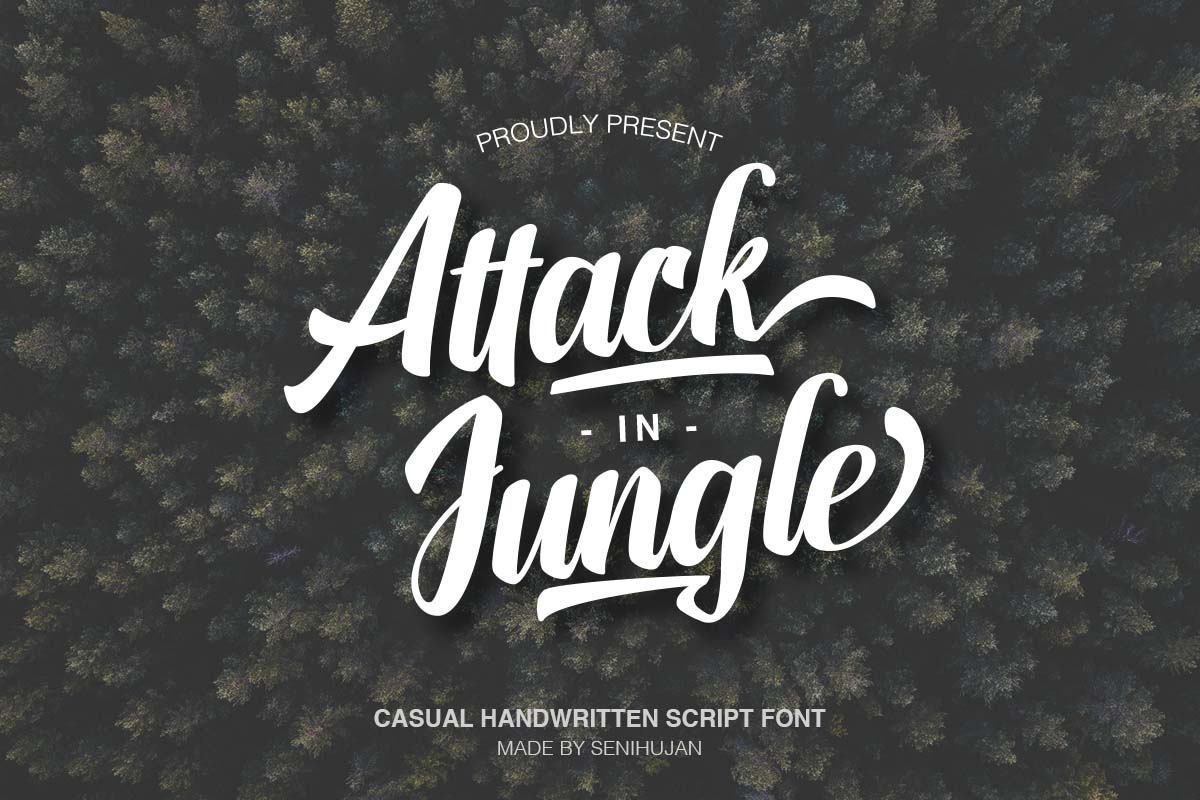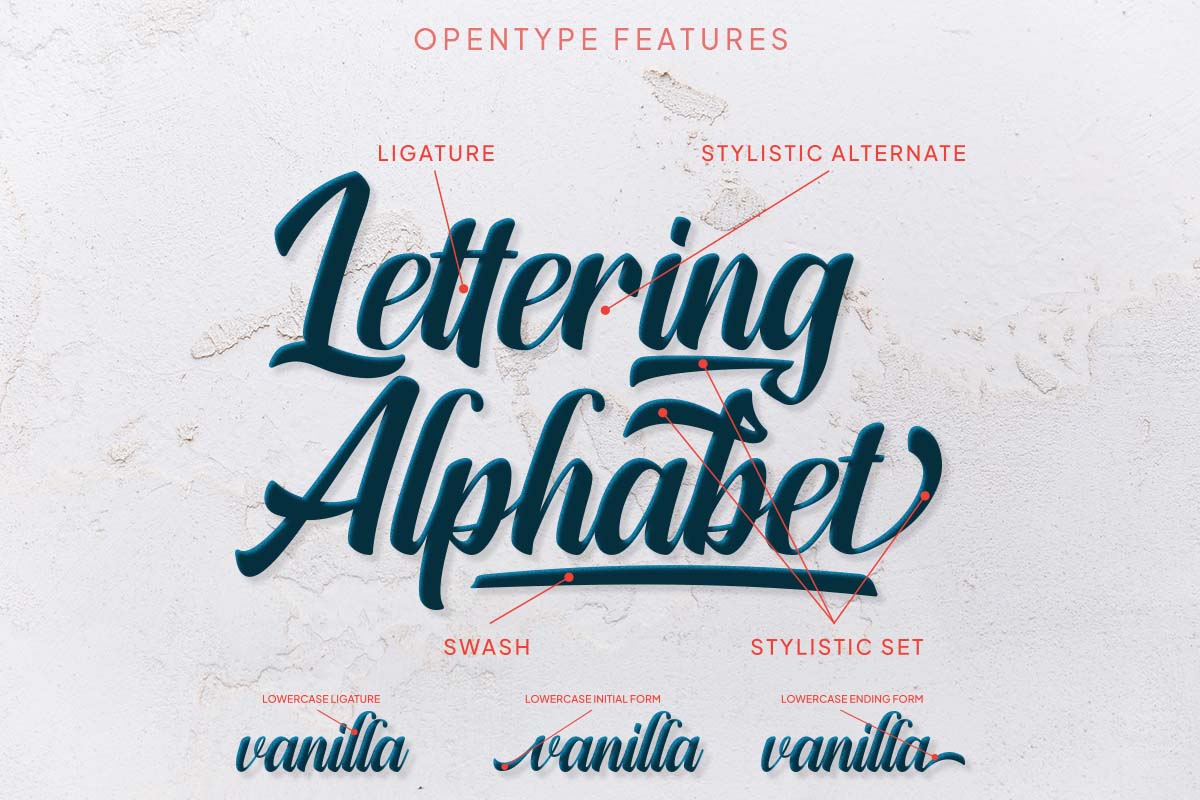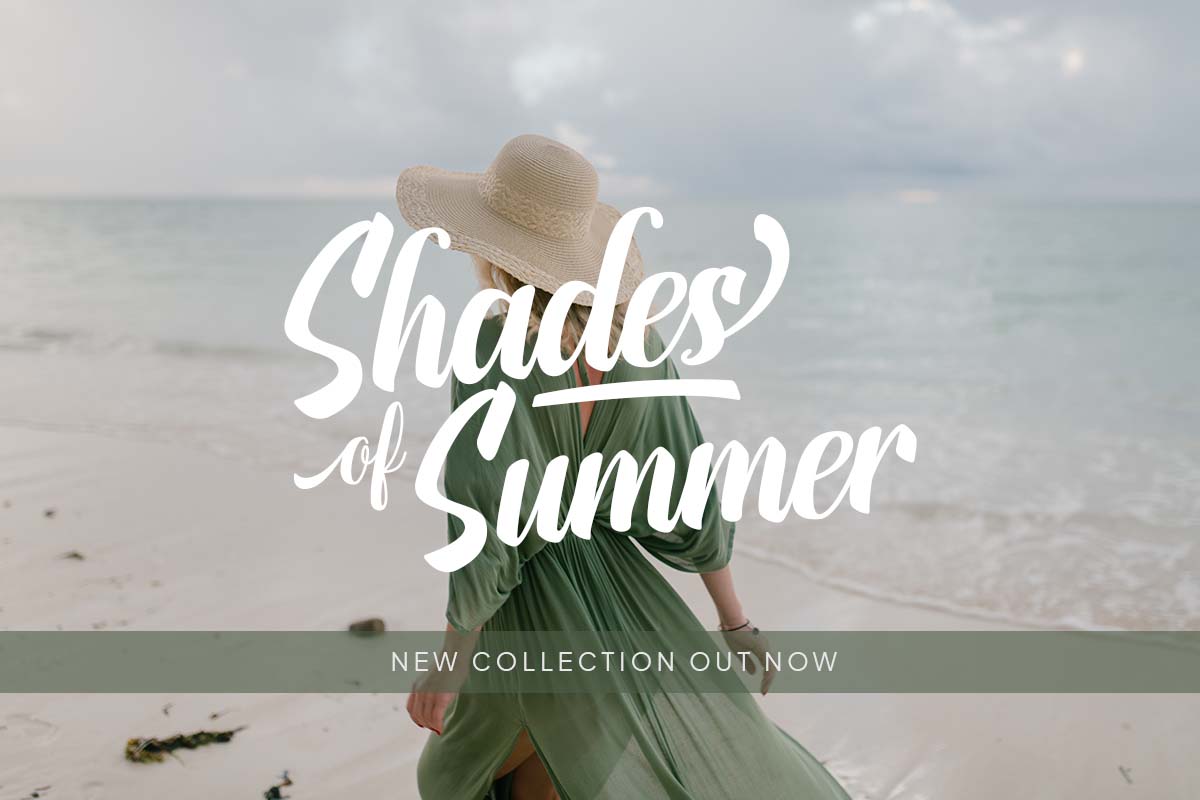
Introducing Attack in Jungle Script Font!
This font was designed by Senihujan Studio, and this is a premium font, is sold on creativefabrica, but it was great, it is free today for download. The Attack in Jungle font is great for Branding, Logo Design, Lettering, Logotype, Clothing, Poster, magazine, and other design projects.